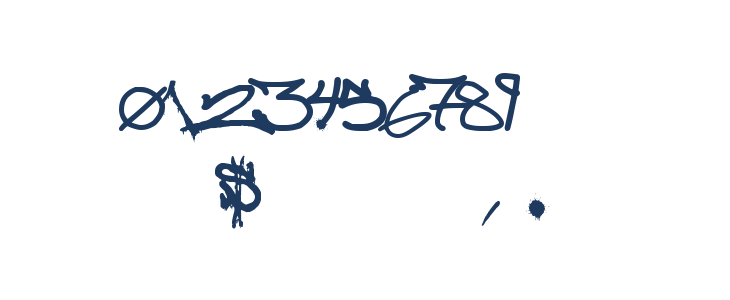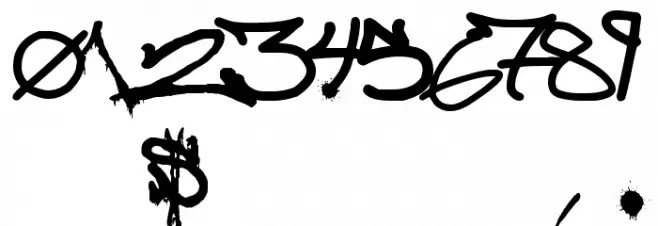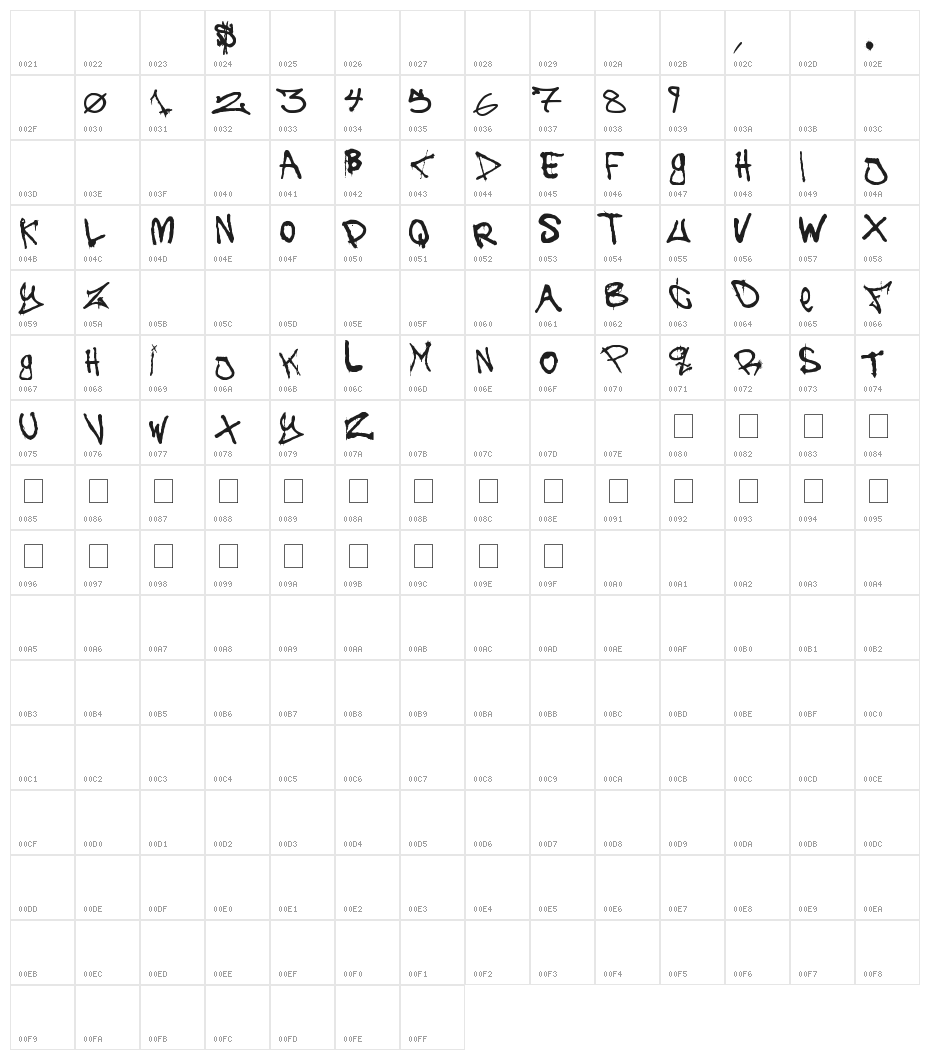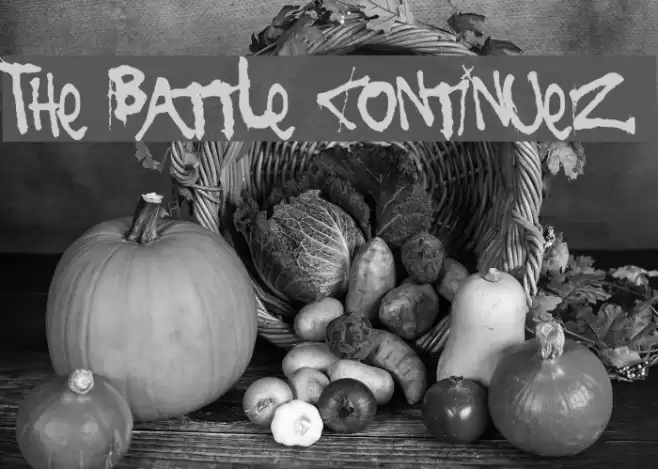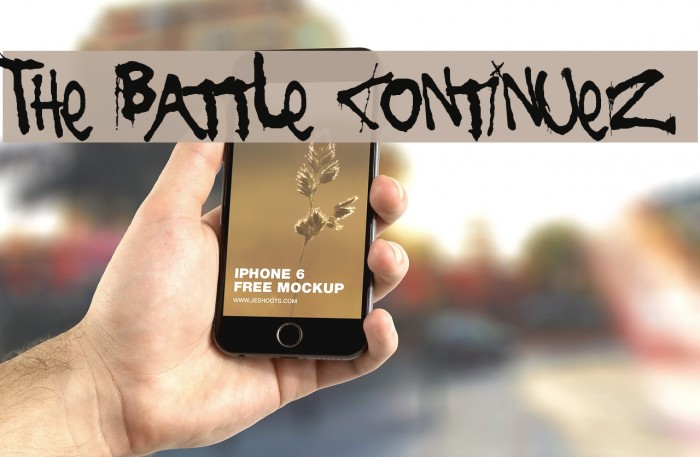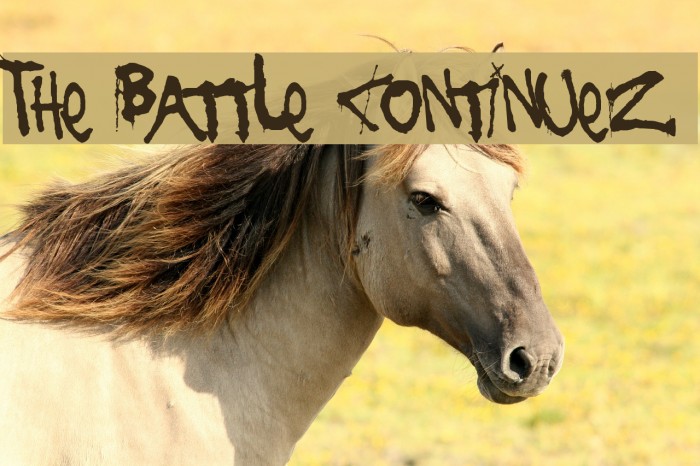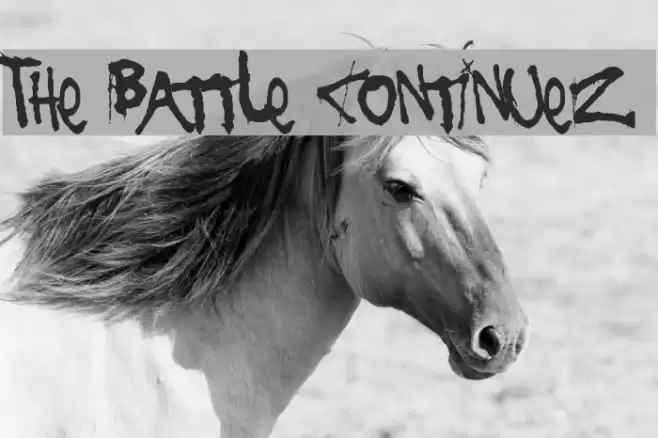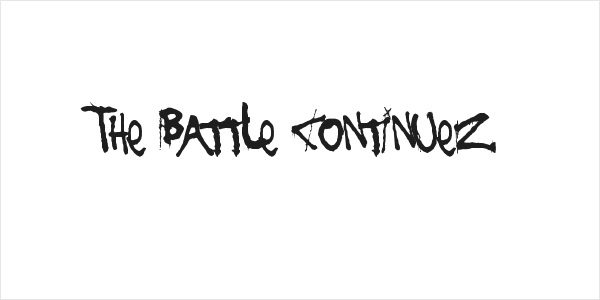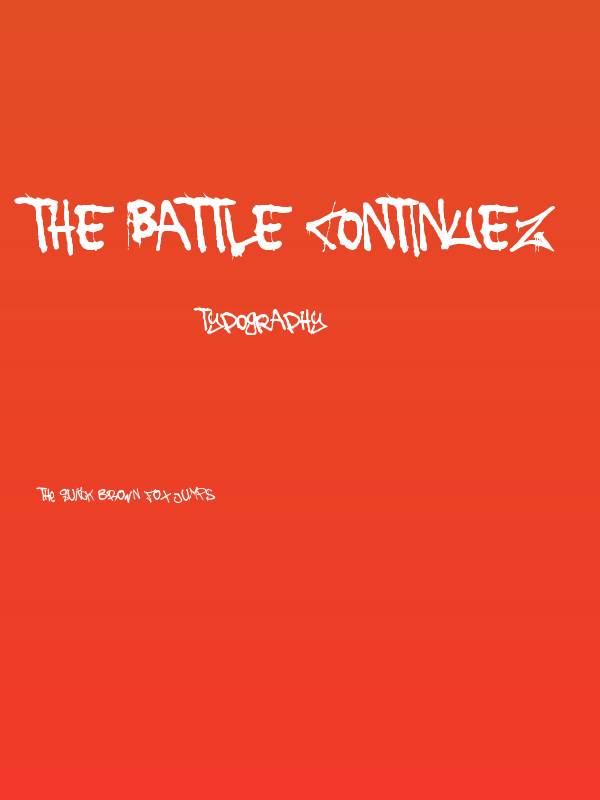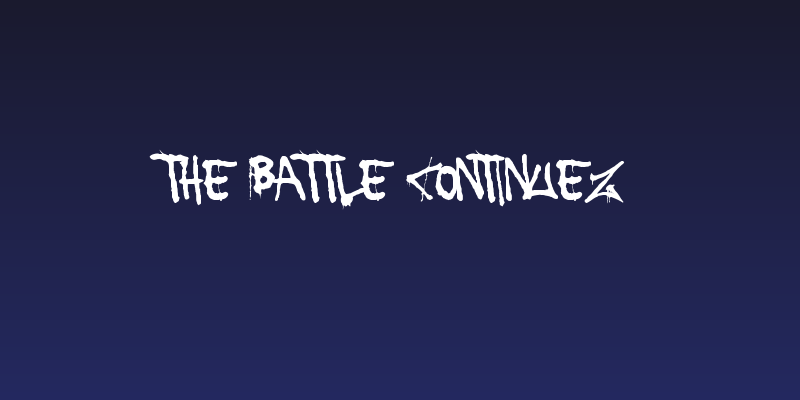
The Battle Continuez Font
The Battle Continuez Description
This font exudes a raw, edgy aesthetic with its graffiti-inspired design. The characters are bold and irregular, featuring splatters and drips that mimic spray paint. Each letter has a unique, hand-drawn quality, emphasizing individuality and rebellion. The uppercase and lowercase letters maintain a consistent style, while numbers and special characters follow the same artistic theme. This font is perfect for projects that require a streetwise, urban vibe, capturing the essence of street art and counterculture.
| Overall Style | Urban, Edgy, Graffiti |
| Use Case | Logos, Posters, Album Covers |
| Proposed Projects | Ideal for street art projects, urban-themed posters, music album covers, and edgy branding. |